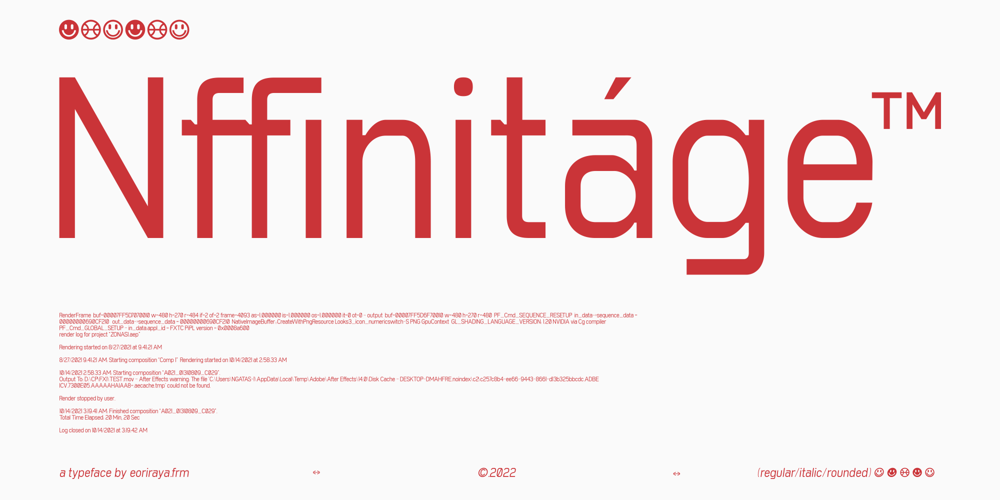
Nffinitage Font Family was designed by Kukuh Ramadhan and published by Eoriraya.type. Nffinitage contains 4 styles and family package options. Nffinitage is a sans serif typeface design, published by Eoriraya. The basis of this typeface is geometric shapes with a modern and futuristic impression, making it suitable for digital communication needs. Nffinitage consists of the regular and rounded typestyle